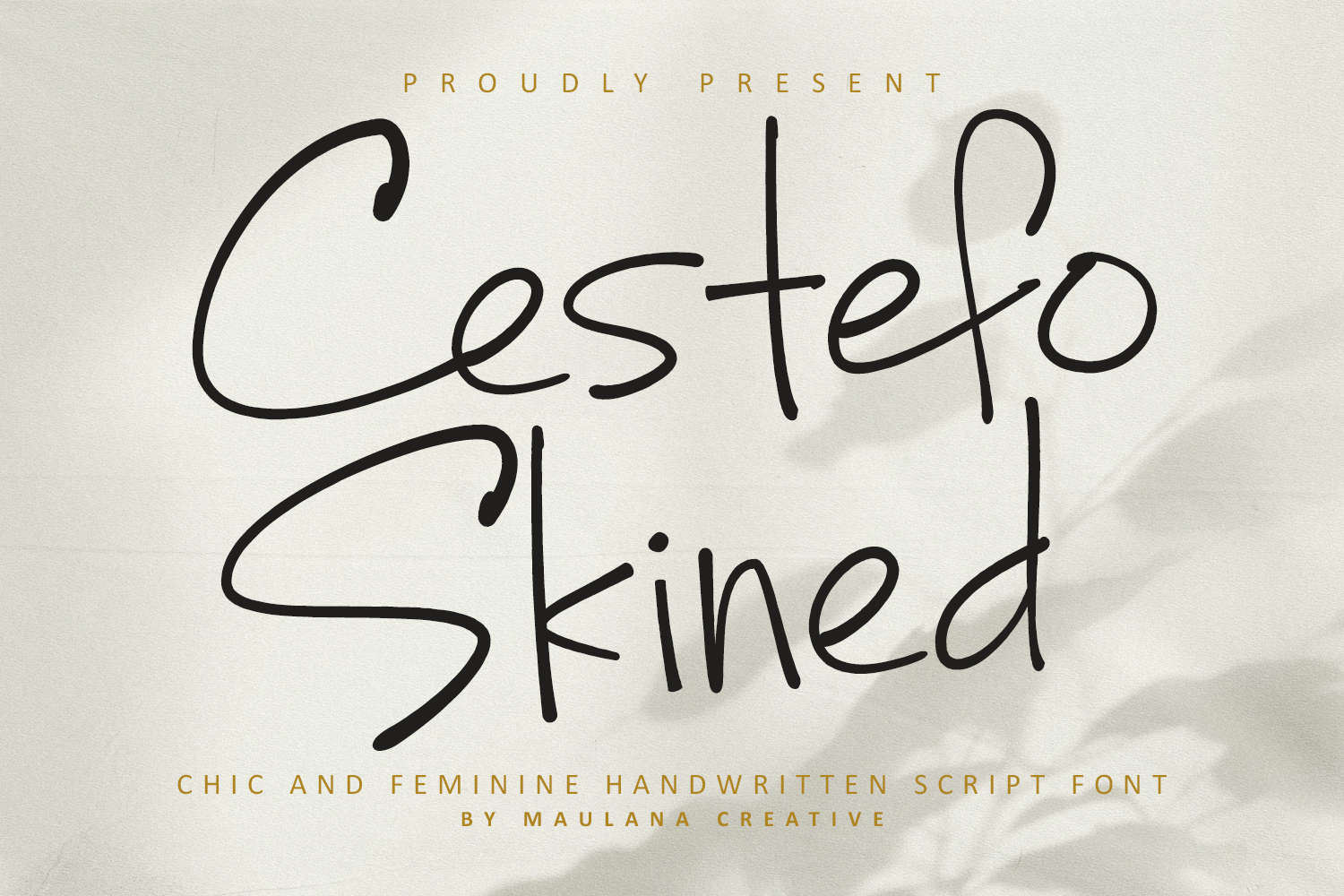
Cestefo Skined Feminine Handwritten Chic Font
Cestefo Skined is a chic and feminine handwritten script font designed to bring elegance and modern charm into your creative projects. With its natural strokes and casual handwritten style, this font is perfect for branding, wedding invitations, fashion editorials, social media posts, quotes, packaging, and lifestyle designs. Its versatile character set includes uppercase, lowercase, numbers, punctuation, and ligatures, making it suitable for both professional.
Whether you want to create a stylish logo, romantic stationery, or a trendy social media aesthetic, Cestefo Skined will add a unique and sophisticated touch to your designs.